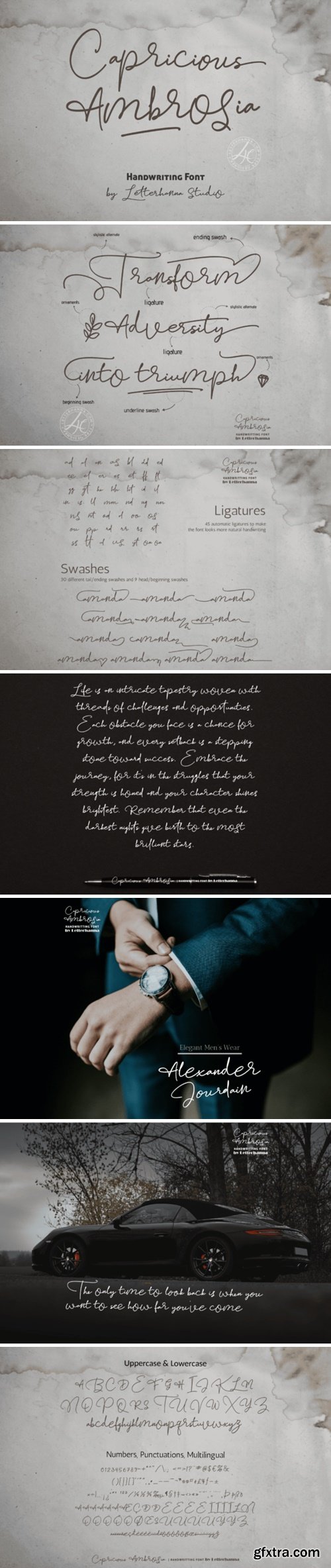
任性 Ambrosia 字体
Introducing “Capricious Ambrosia” – a captivating handwritten font that embodies the essence of unpredictability and delight. Each stroke of this font is a wild card, carrying a sense of unexpected charm. Just like a nomad’s journey filled with surprises, “Capricious Ambrosia” adds an element of mystique to your designs. Whether you’re seeking a font that breaks conventions or a touch of divine creativity, let “Capricious Ambrosia” guide your artistic path. Embrace the beauty of unpredictability and savor the unique flavor it brings to your projects.